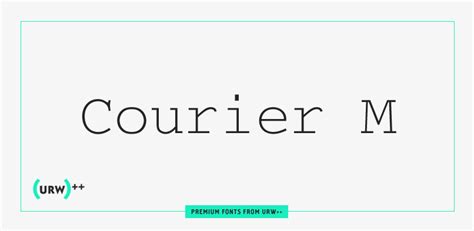
Courier M Font. Courier is a monospaced typeface for use in tabular material, technical documentation, and word processing. Buy courier m font from urw type foundry on fonts.com.